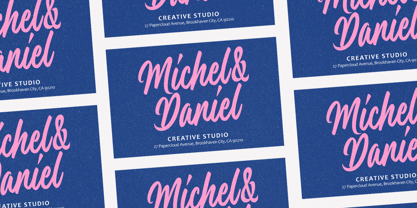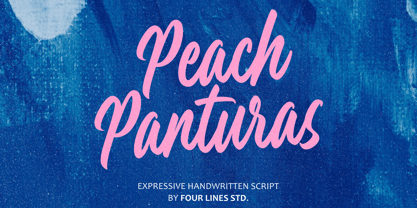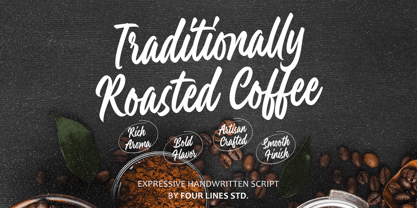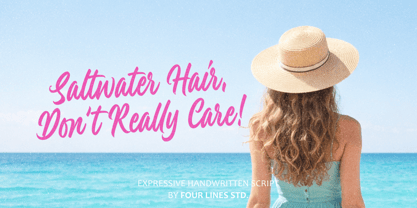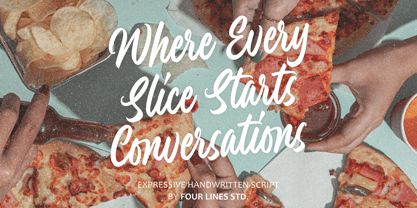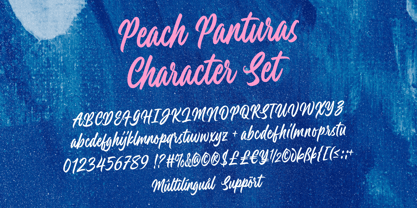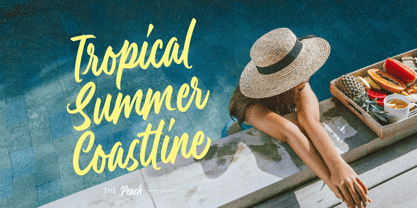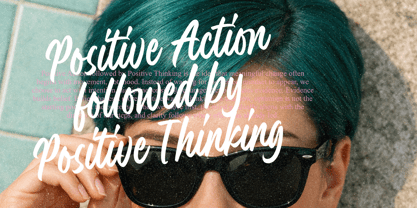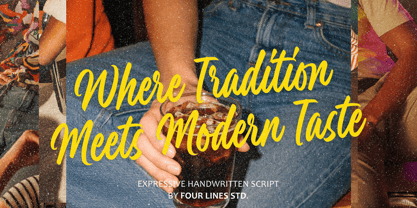
Peach Panturas
by Four Lines Std
The Peach Panturas Font Family was designed by Zain Fahroni and published by Four Lines Std. Peach Panturas contains 1 styles. More about this family
Peach Panturas is a handwritten font featuring naturally flowing letterforms and a lively writing rhythm, creating a look that feels both personal and modern. It is perfect for branding headlines, product packaging, cafés and coffee shops, lifestyle products, summer-themed designs, and social media content that aims to feel friendly and inviting. Complete with uppercase and lowercase letters, numerals, punctuation, and multilingual support, Peach Panturas offers flexibility for a wide range of design needs and languages.
Designers: Zain Fahroni
Foundry: Four Lines Std
Four Lines Studio is a graphic design studio founded in 2019 by Zain Fahroni in Bandung City, Indonesia. The studio's name is inspired by a friendship story that is close to the founder's heart. Our work is heavily influenced by this friendship, which has given birth to an identity that is associated with fun, playful, and groovy elements. A key area for the studio is typography, with a specific focus on developing fonts that emphasize minimalism and versatility.